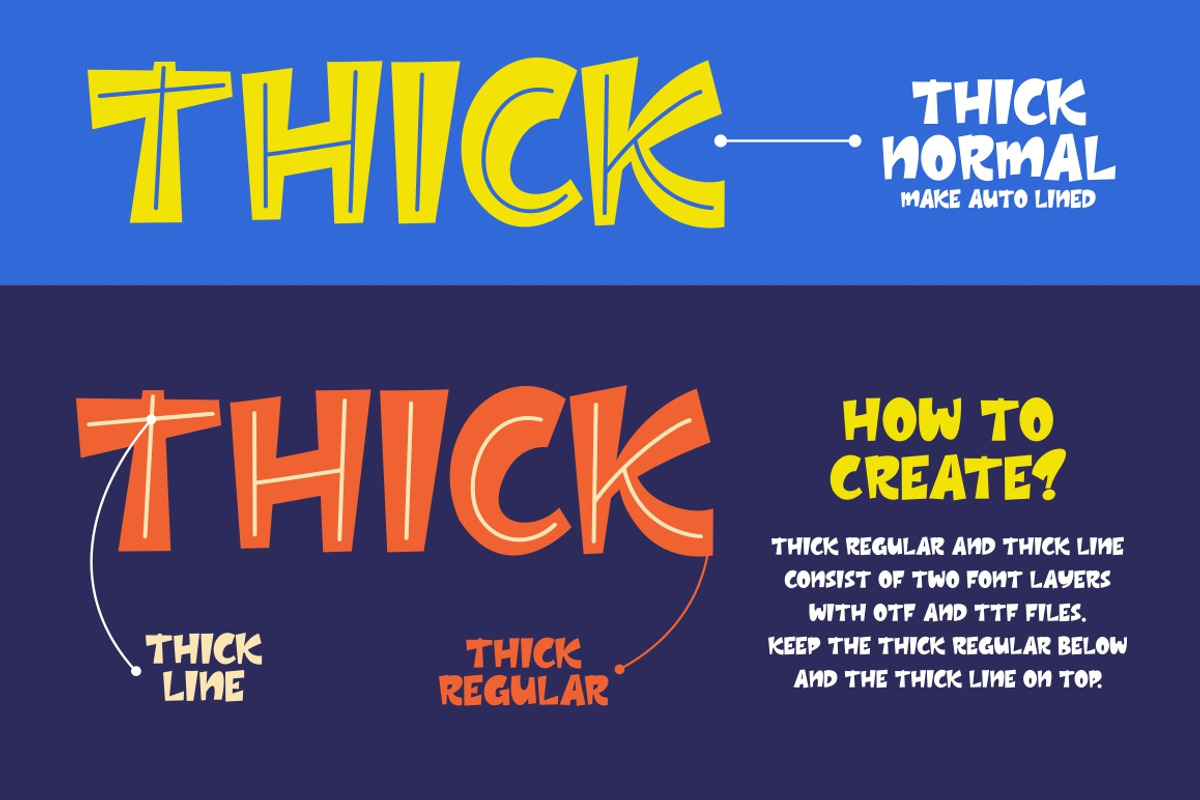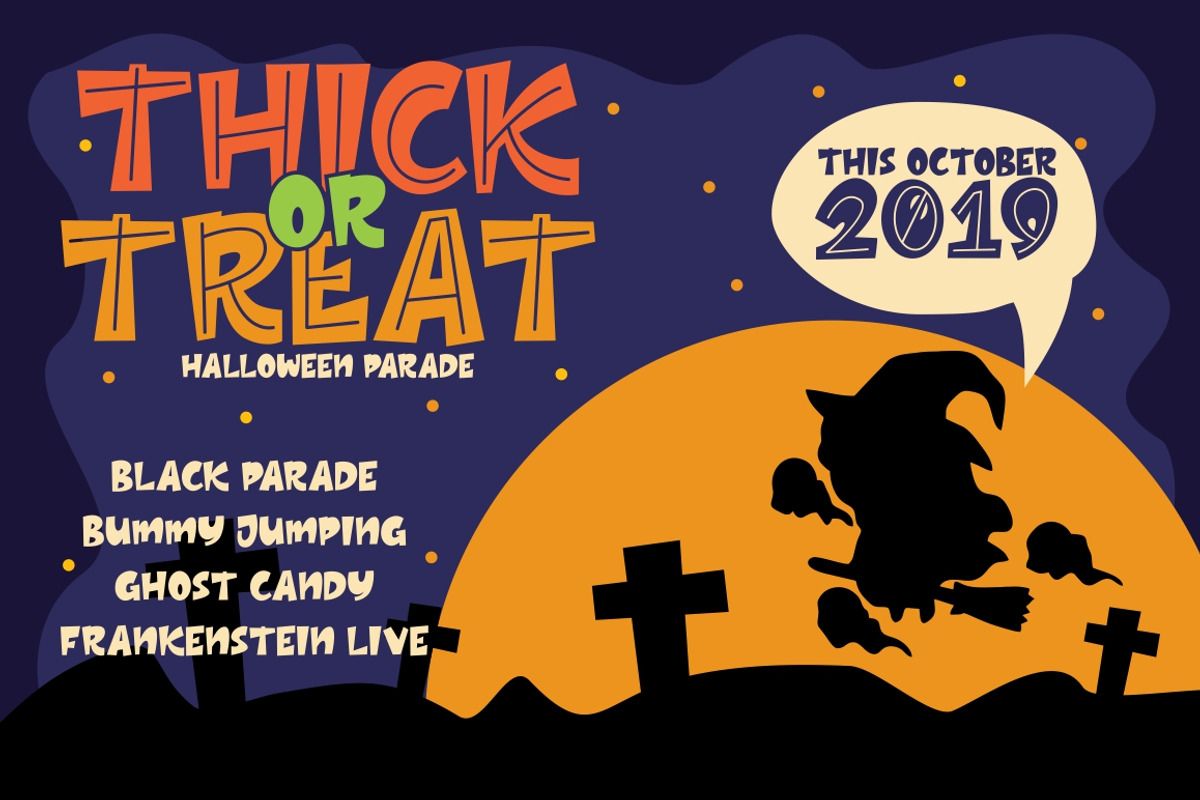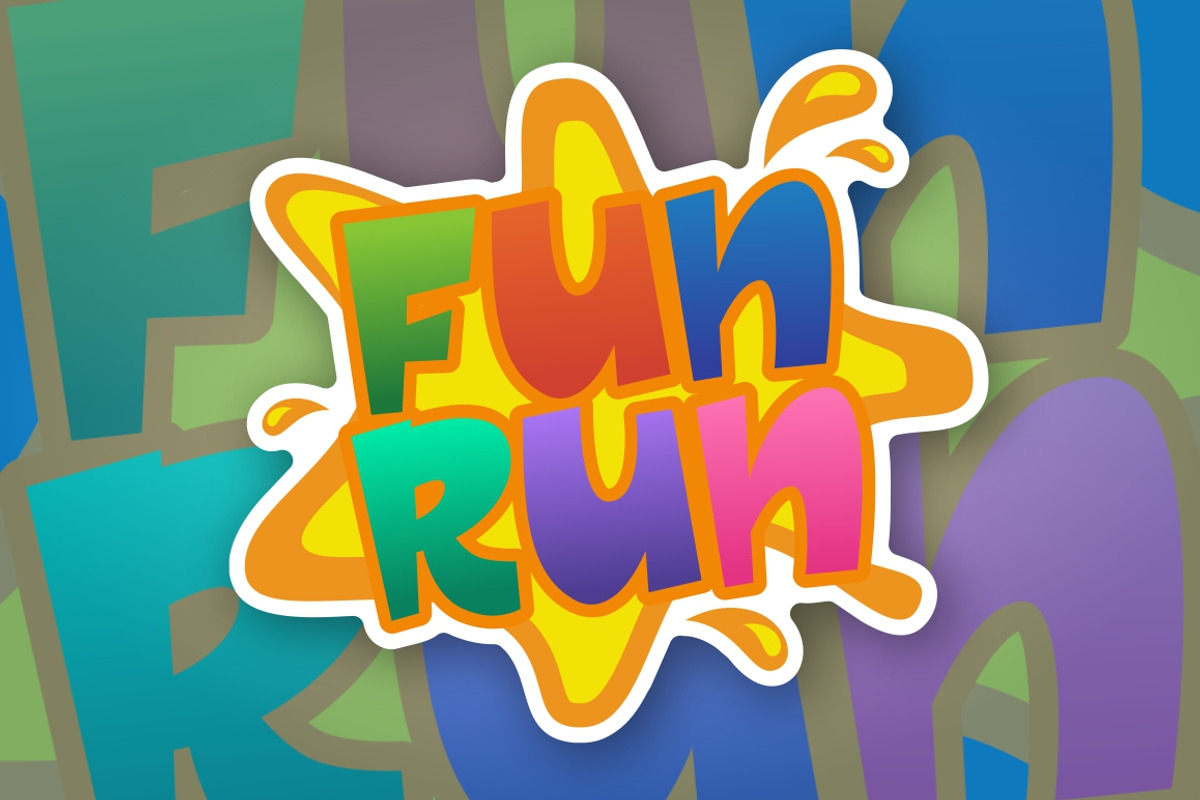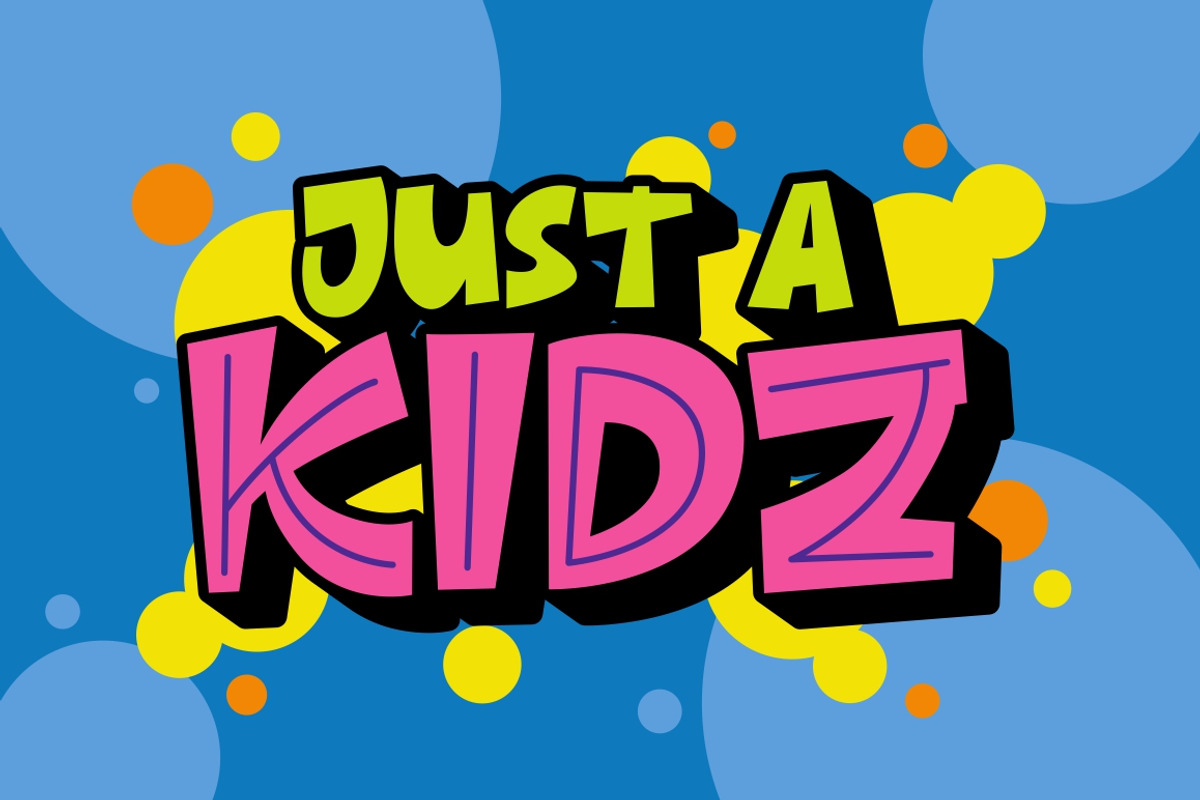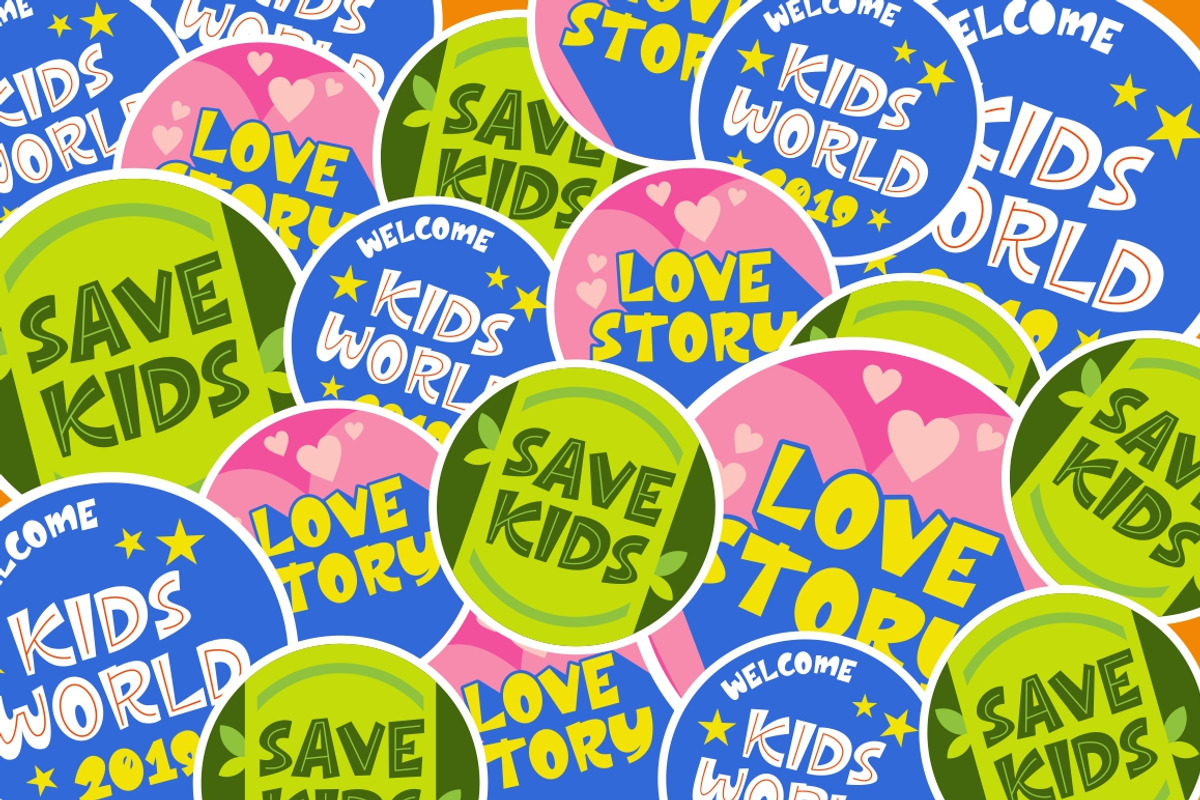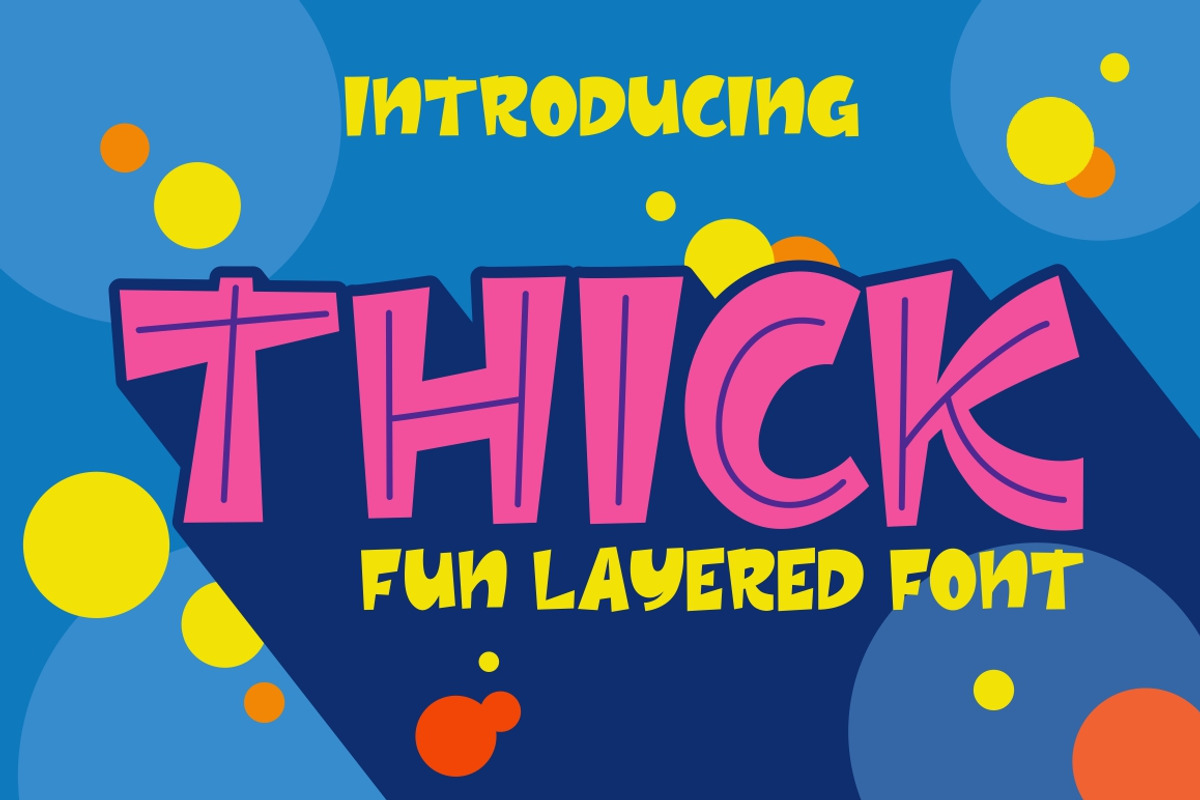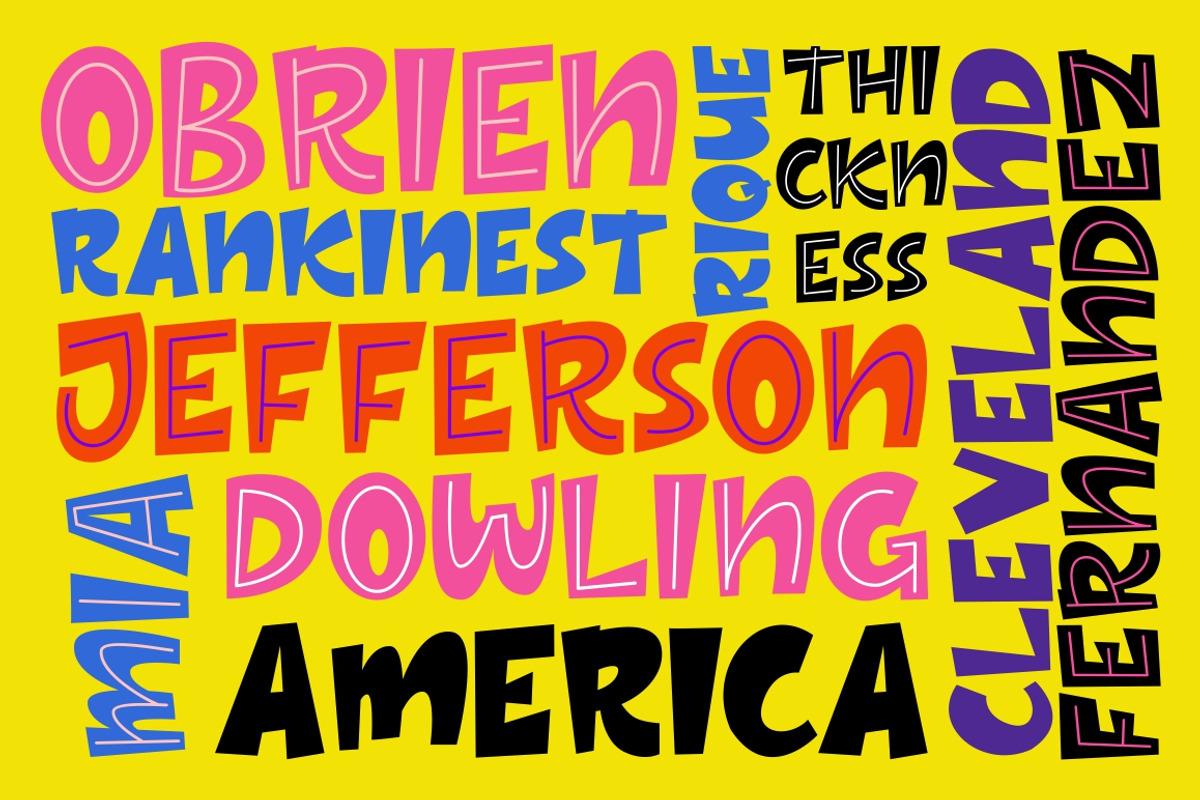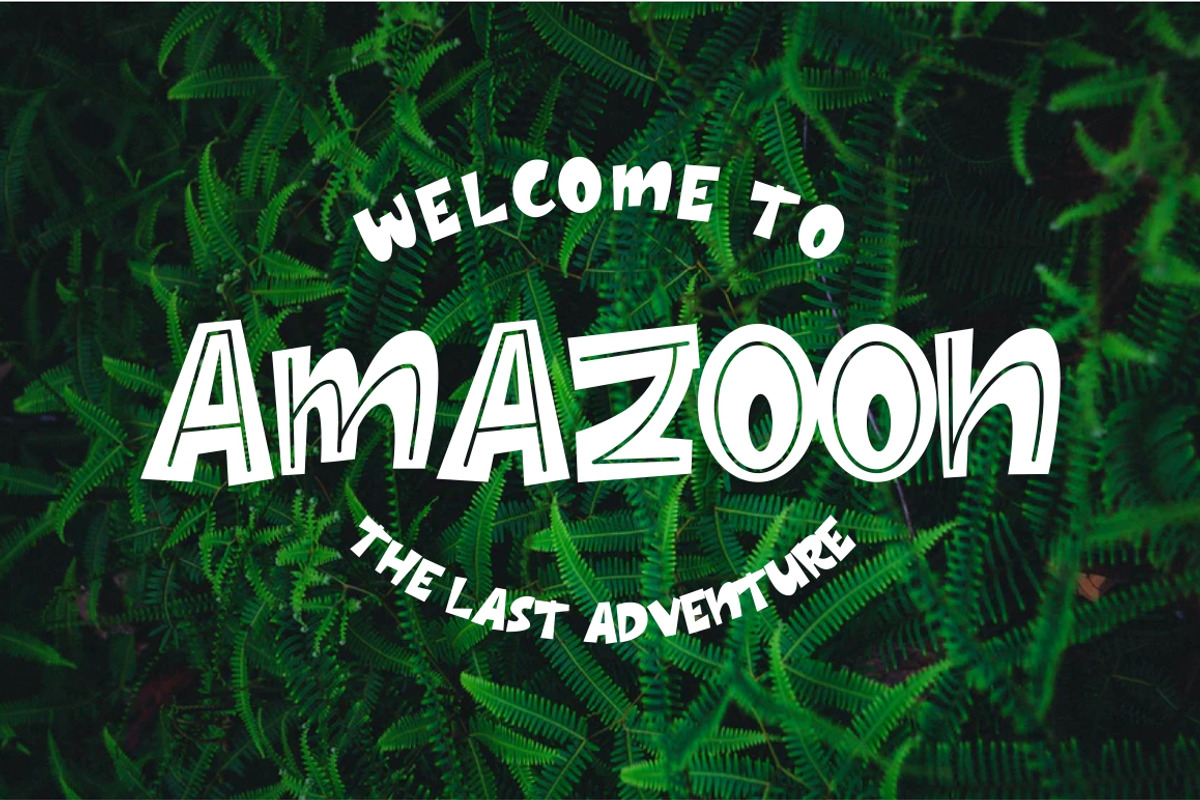
THICK - Layered Font
Thick is the perfect font for all your fun designs and also for HALLOWEEN PARTY POSTER. The main font file is equipped with ordinary characters, as well as more than 350 glyphs to support most Latin-based languages. Everything is made with the same brush, and everything is the same size as Thick, so you can be sure they will work well together! It is suitable for you to use in making t-shirt design, quote, label, packaging, logo type, or long writing. Because we have compiled kerning and matrices that are tailored to your needs.
More than 350+ glyphs
- The main font file is equipped with ordinary characters, as well as more than 350 glyphs to support most Latin-based languages.
- Because we have compiled kerning and matrices that are tailored to your needs.
Why THICK - Layered Font is worth a look
THICK - Layered Font by Good Java Studio fits naturally into Branding, posters, packaging, typography.